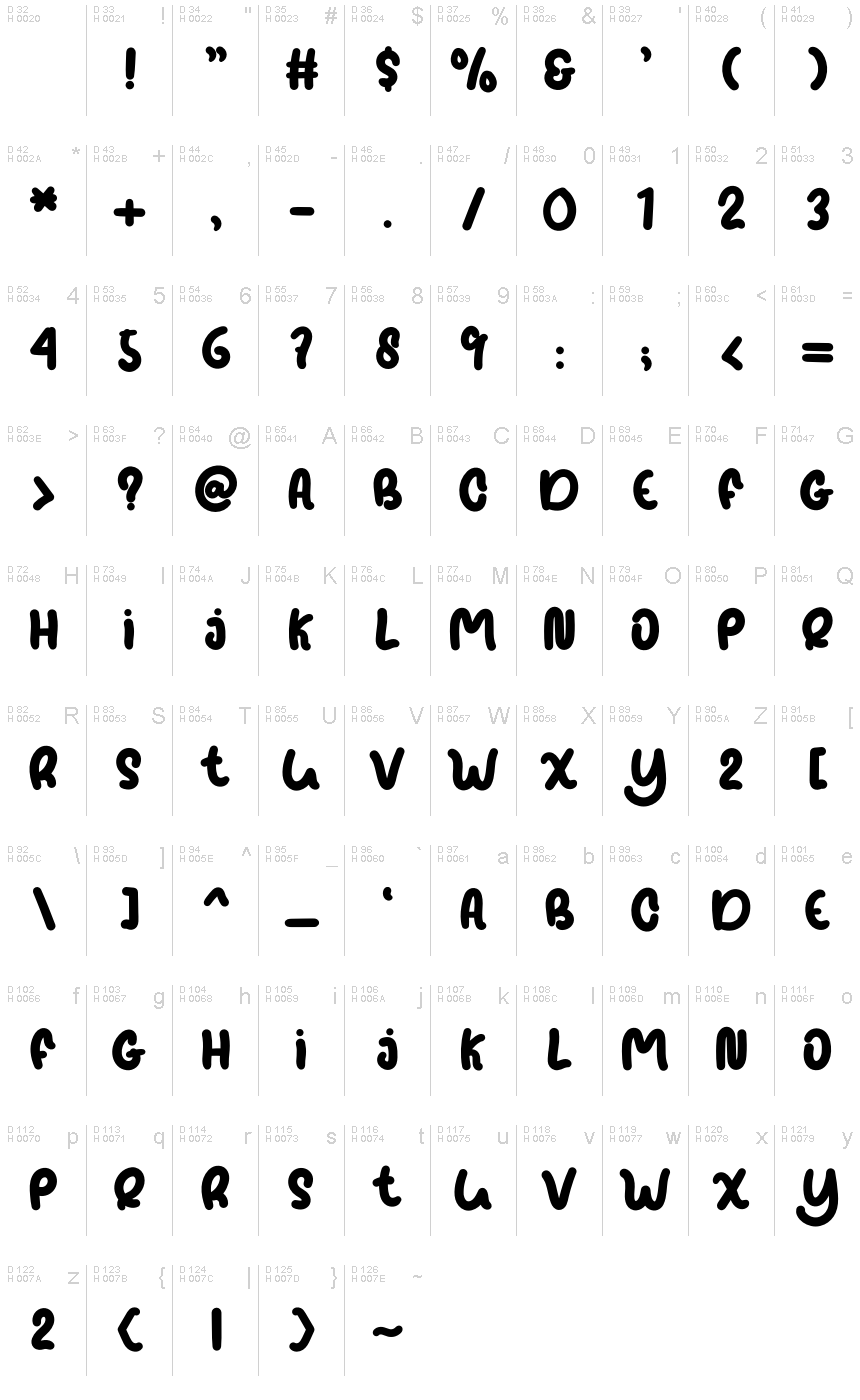
December
December, designed by PiPi Creative, is a bold handwritten font that exudes personality and charm. Its robust weight and fluid strokes offer a harmonious balance between impact and elegance, making it an excellent choice for designers aiming to inject warmth and character into their projects.
The font's handwritten style suggests authenticity and approachability, ideal for branding, packaging, and social media that require a personal touch. December's aesthetic appeal lies in its ability to capture the spontaneity of hand lettering while maintaining readability—a versatile asset in any creative toolkit.